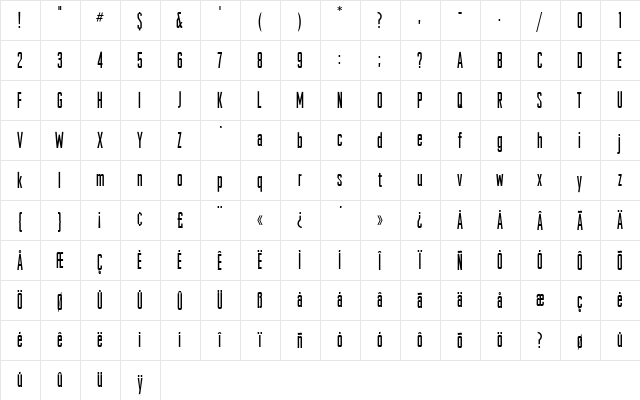
RaleighGothic Regular
Design Context for RaleighGothic Typeface
RaleighGothic takes a clean, functional approach — its unadorned letterforms prioritise legibility and work reliably across screen and print environments.
Font Pairing: Works well alongside a characterful serif or display font that can carry the expressive load while RaleighGothic handles the functional copy.
Pro Tip: Use RaleighGothic for UI labels, navigation, and short-form body copy where clean legibility is the priority.